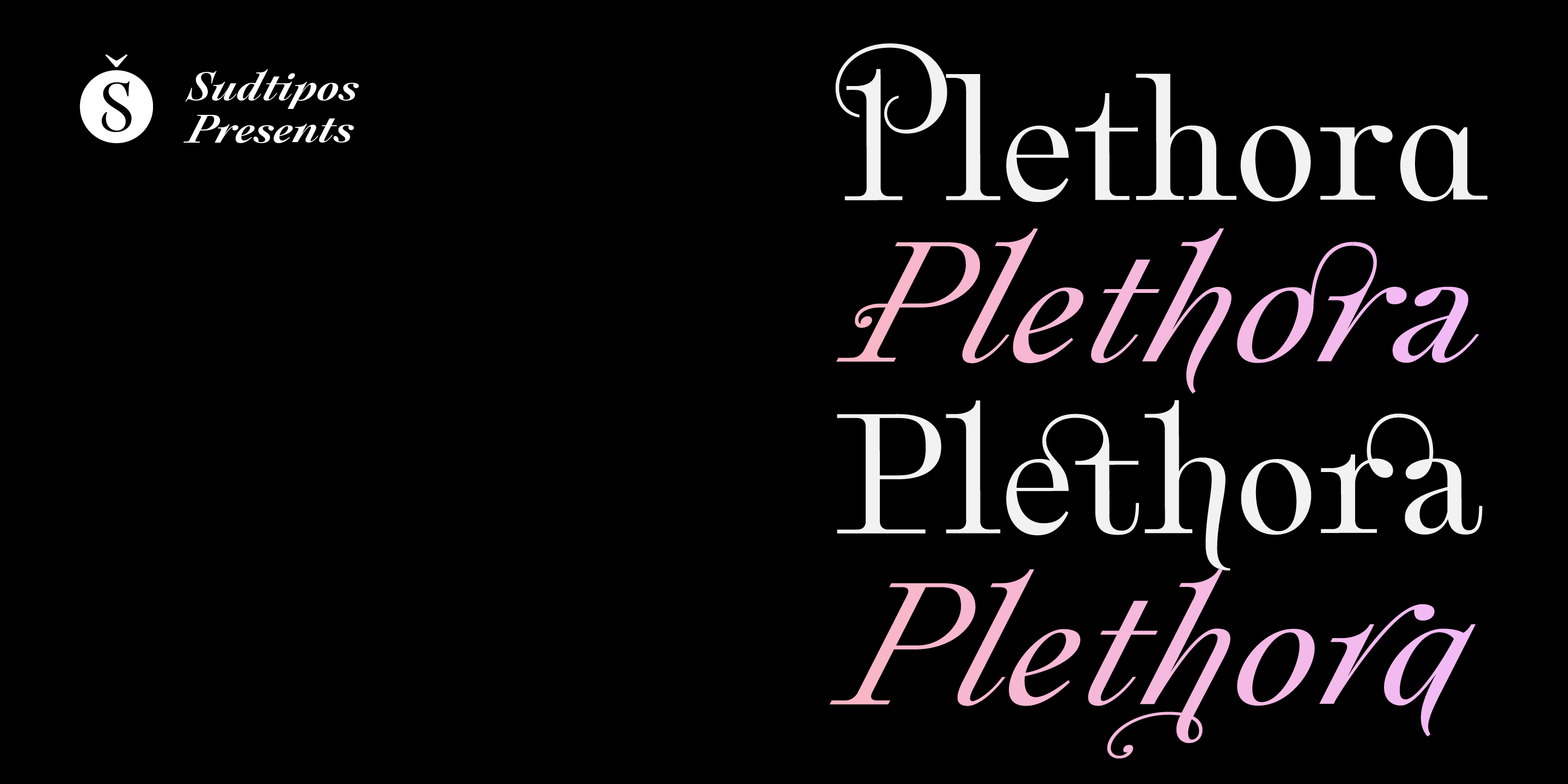
Plethora Font is perfect for abundance-themed marketing campaigns, prosperity coaching branding, wealth management firm logos, luxury lifestyle magazines, high-volume retail signage, expansive corporate presentations, comprehensive service advertisements, and abundant opportunity marketing materials. This abundant typeface excels in applications where wealth and comprehensive offerings are essential.
What makes Plethora Font so exciting is its magnificent ability to convey abundance and comprehensive excellence through rich, expansive letterforms that embody the spirit of prosperity and the satisfaction of having unlimited options and opportunities. The font features generous character shapes with abundance-inspired details and comprehensive styling that evoke images of overflowing resources, diverse possibilities, and the luxurious feeling of having everything one could desire. Its abundance-focused design philosophy combines prosperity authenticity with contemporary sophistication, making it perfect for business brands seeking to convey comprehensive services, abundant value, and connection to wealth-building communities and prosperity culture.
Plethora Font belongs to the abundance serif font family, specifically designed for prosperity and comprehensive service branding applications. This typeface family emphasizes expansive visual impact through wealth-inspired styling and abundant character elements, ensuring authentic prosperity presentation across various business growth and wealth management-focused design projects.
Embrace unlimited possibilities with Plethora Font Free Download, a typeface that embodies the magnificent spirit of abundance and comprehensive excellence. This prosperous font delivers exceptional richness for business applications, featuring comprehensive character sets with prosperity symbols and abundant punctuation marks that capture the essence of wealth creation and unlimited opportunities. Its generously crafted letterforms maintain excellent readability while preserving the authentic abundance aesthetic across various sizes, from elegant business cards to massive corporate headquarters displays. The font's distinctive prosperous personality makes it invaluable for designers creating wealth brands, business materials, and prosperity content where conveying abundance, comprehensive value, and unlimited potential is crucial for engaging affluent audiences and business communities seeking expansive growth opportunities and comprehensive service excellence.